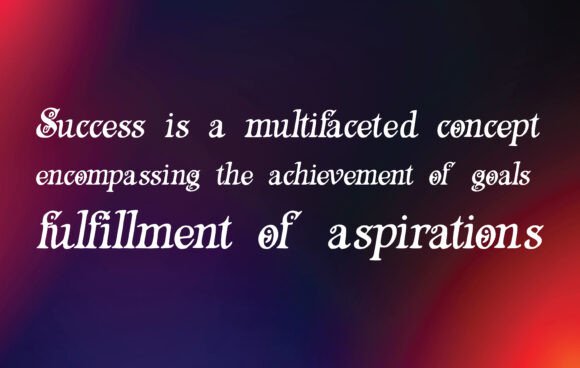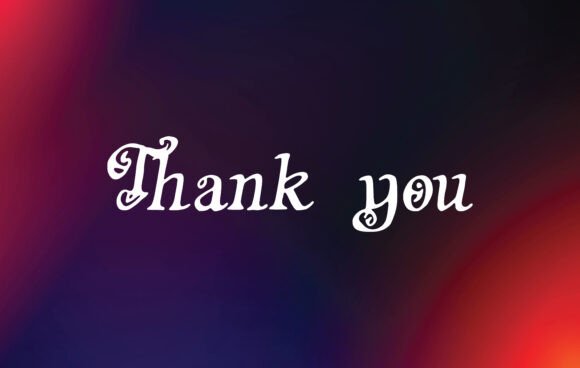
Achilles Font: Elevate Your Creative Projects with this Stunning Handwritten Font
Are you a designer, crafty enthusiast, or simply someone who appreciates beautiful typography? Look no further than the Achilles Font, a lovely and beautiful handwritten font that has the potential to take your creative ideas to the highest level. In this article, we’ll dive into the world of Achilles Font, exploring its features, benefits, and uses, and why it’s the best choice for creating eye-catching logos, branding, and quotes.
What is Achilles Font?
Achilles Font is a modern, handwritten font that exudes elegance and sophistication. Its unique, flowing script is perfect for adding a personal touch to any design project. Whether you’re creating a logo, branding materials, or social media graphics, Achilles Font is sure to make your work stand out from the crowd.
Key Features of Achilles Font
- Handwritten style: Achilles Font boasts a beautiful, handwritten style that adds a touch of warmth and personality to any design.
- Unique lettering: Each letter is carefully crafted to create a unique and distinctive look that’s sure to capture attention.
- Versatile: Achilles Font is perfect for a wide range of design projects, from logos and branding to quotes and social media graphics.
- Elegant and sophisticated: The font’s flowing script and elegant lines make it perfect for projects that require a touch of sophistication.
Benefits of Using Achilles Font
So why choose Achilles Font for your design projects? Here are just a few benefits of using this stunning font:
- Stand out from the crowd: Achilles Font is a unique and distinctive font that’s sure to make your design projects stand out from the crowd.
- Easy to read: Despite its elegant style, Achilles Font is easy to read, making it perfect for body text and captions.
- Customizable: Achilles Font comes with a range of customization options, allowing you to tailor it to your specific design needs.
- Time-saving: With Achilles Font, you can create professional-looking design projects in no time, saving you time and effort.
Uses of Achilles Font
Achilles Font is a versatile font that can be used for a wide range of design projects, including:
- Logos and branding: Create eye-catching logos and branding materials that showcase your brand’s personality and style.
- Quotes and posters: Add a touch of elegance and sophistication to your quotes and posters with Achilles Font.
- Social media graphics: Create stunning social media graphics that stand out from the crowd and grab attention.
- Invitations and cards: Add a personal touch to your invitations and cards with Achilles Font’s beautiful handwritten style.
Tips for Using Achilles Font
Here are a few tips for getting the most out of Achilles Font:
- Experiment with different sizes: Achilles Font looks great in a range of sizes, from large headings to smaller body text.
- Pair with other fonts: Try pairing Achilles Font with other fonts to create a unique and eye-catching look.
- Use it sparingly: While Achilles Font is beautiful, it can be overwhelming if used too much. Use it sparingly to create a striking effect.
In conclusion, Achilles Font is a stunning handwritten font that’s perfect for designers, crafty enthusiasts, and anyone who appreciates beautiful typography. With its unique lettering, elegant style, and versatility, Achilles Font is sure to take your creative projects to the next level. Whether you’re creating logos, branding materials, quotes, or social media graphics, Achilles Font is the perfect choice. So why wait? Download Achilles Font today and start elevating your design projects!